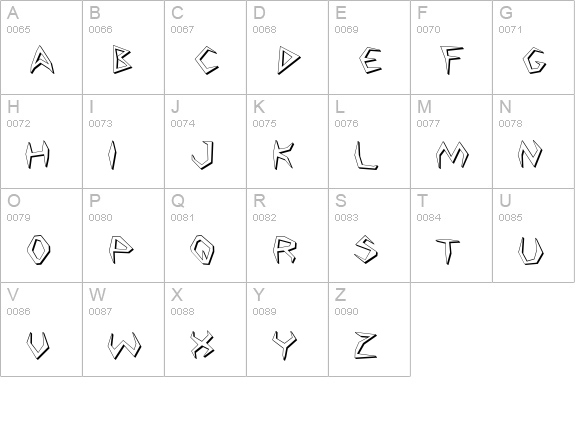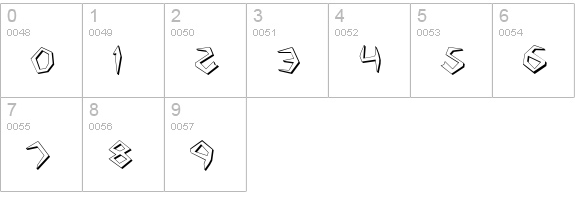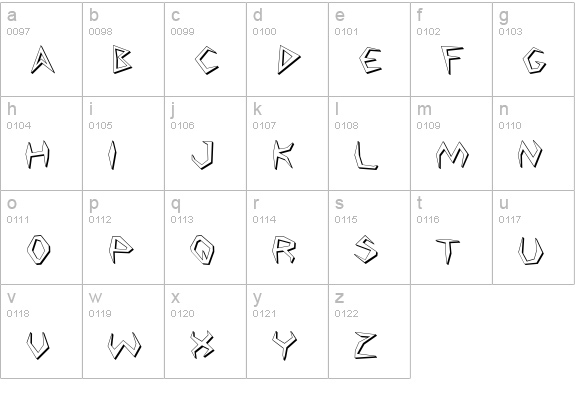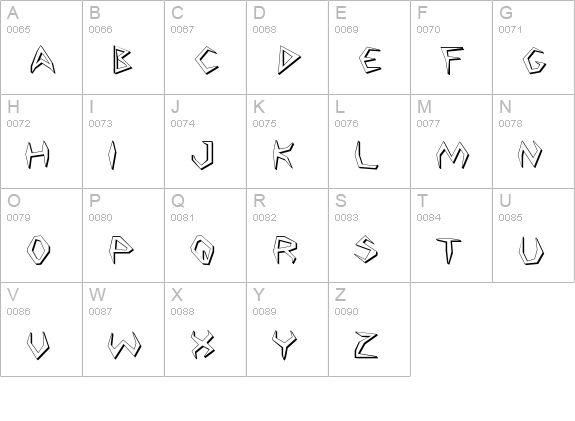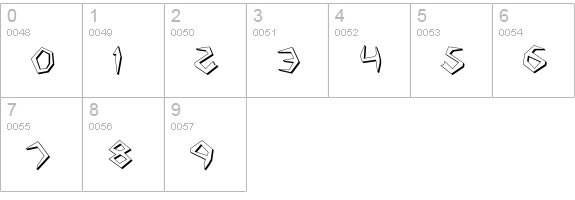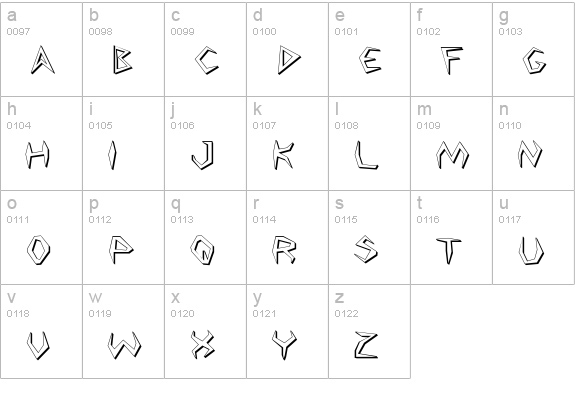
Argosy 3D Font Details
Introducing Argosy 3D, a stunning and versatile font that will take your designs to the next level! This unique typeface features intricate 3D effects that add depth and dimension to any project, making it perfect for eye-catching headlines, logos, and more. The elegant curves and sharp angles of Argosy 3D create a modern and sophisticated look that is sure to impress. And the best part? Argosy 3D is completely free to download at FontsMarket.com! Now you can add this stylish font to your collection without breaking the bank. Whether you're a designer looking to spice up your work or a hobbyist wanting to play around with new fonts, Argosy 3D is the perfect choice. Don't miss out on this amazing opportunity to elevate your designs with this fabulous font. Download Argosy 3D today and let your creativity soar!